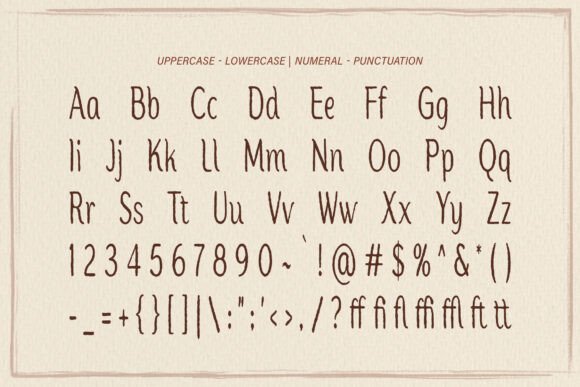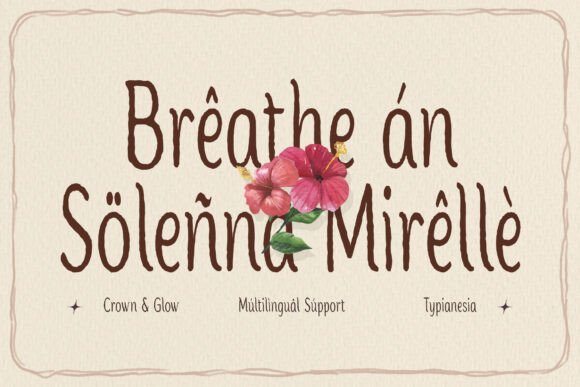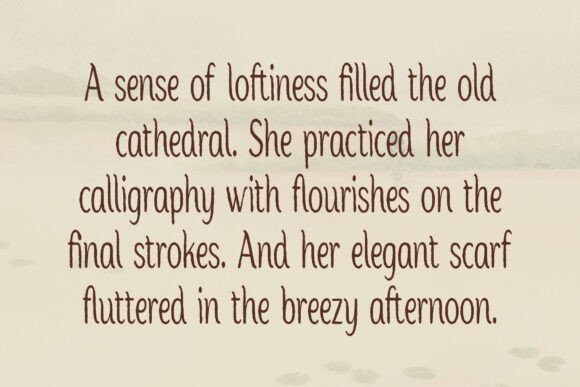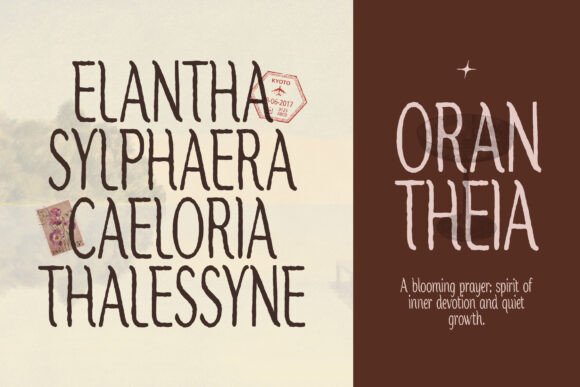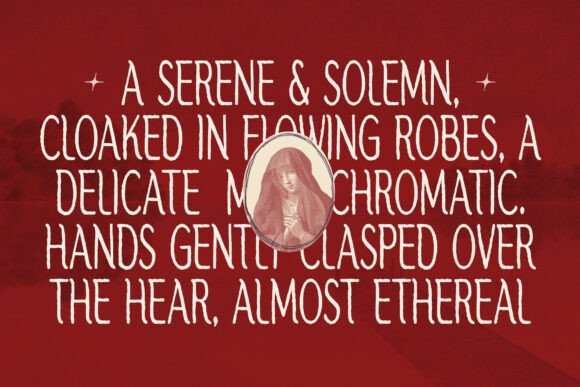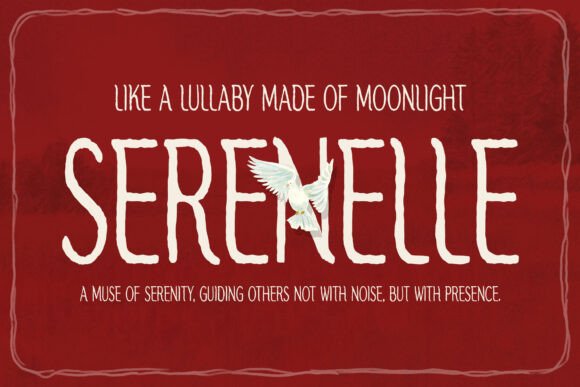
Introduction to Crown & Glow Font
As designers, we’ve all been there – staring at a blank canvas, waiting for inspiration to strike. But what if that spark was just a click away? Imagine adding a touch of elegance and sophistication to your next creative project with a font that exudes refinement and charm. Welcome to the world of Crown & Glow Font, a beautifully crafted handdrawn sans serif typeface that’s about to become your new design BFF.
Perfect for designers looking for a high-quality design resource, Crown & Glow Font offers a unique textured feel and feminine appeal that’s sure to elevate your designs. Whether you’re working on a branding project, creating a poster or packaging design, or crafting a logo for a lifestyle brand, this versatile font is the perfect companion. And the best part? You can download it for free, with a transparent background that allows for seamless integration into your creative project.
- High-quality design resource ideal for creative projects, including logos, posters, and more.
- Unique, modern design with a crown-inspired theme, perfect for adding a touch of elegance to any project.
- Includes multiple font styles and weights, including bold and light options, to suit various design needs.
- Supports a wide range of languages, making it a versatile design resource for global projects.
Honest Review: Crown & Glow Font
I recently stumbled upon the Crown & Glow Font, and I must say it’s a fantastic design resource. As a designer, I appreciate high-quality fonts that elevate my creative projects. The Crown & Glow Font is no exception – it’s a beautifully crafted font that adds a touch of elegance to any design.
What works well is the font’s versatility. It’s perfect for creating eye-catching titles, headings, and even logos. The Crown & Glow Font also comes with a transparent background, making it easy to layer over images or other design elements.
- High-quality design with crisp lines and subtle textures
- Perfect for creative projects, including branding, advertising, and editorial design
However, I did notice a few limitations. The font’s font family is relatively small, which may limit its use in certain design scenarios. Additionally, the font may not be suitable for body text due to its ornate design.
⚠️ Despite these limitations, I still highly recommend the Crown & Glow Font for designers looking to add a touch of sophistication to their creative projects. The font’s beauty and versatility make it a valuable addition to any design library.